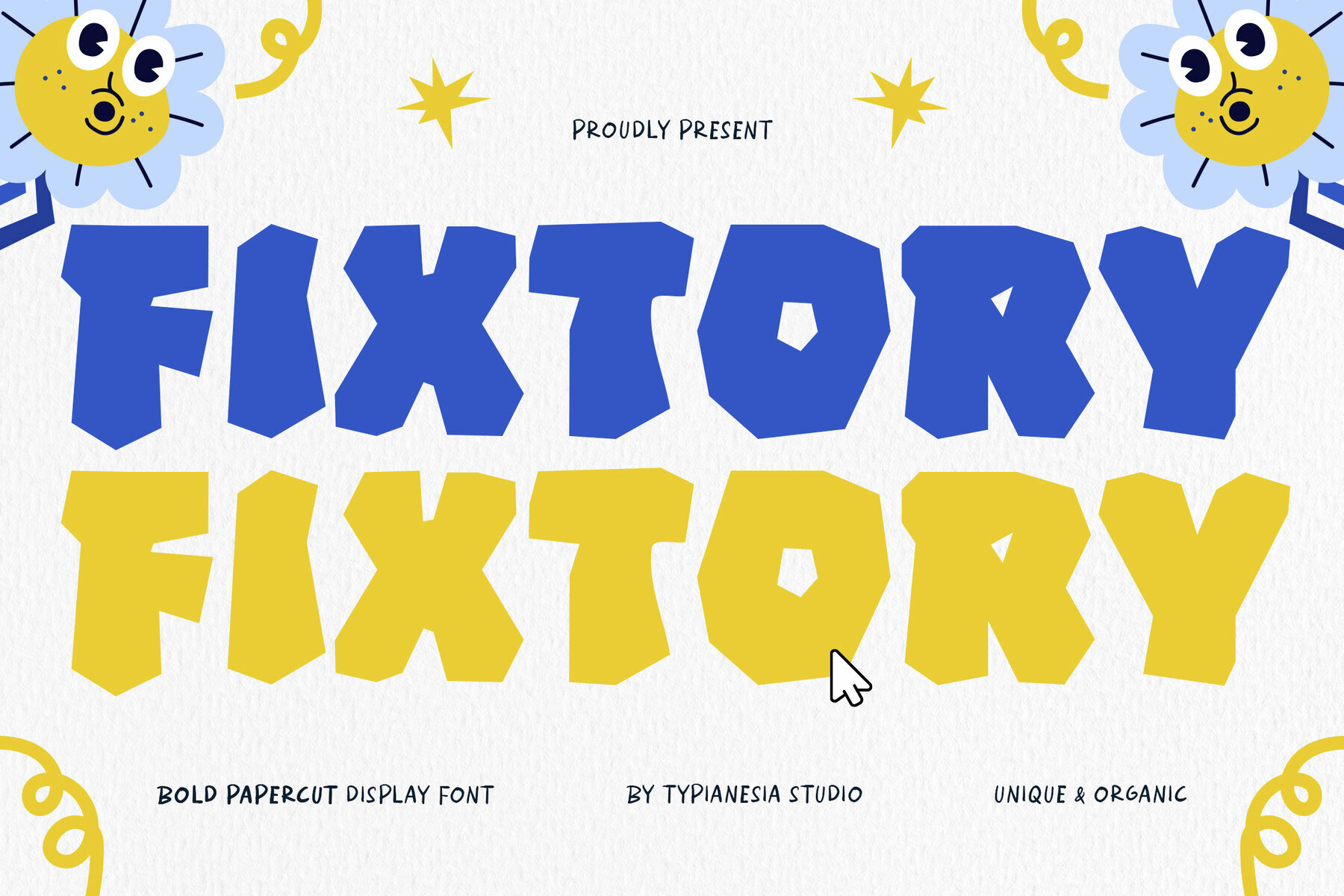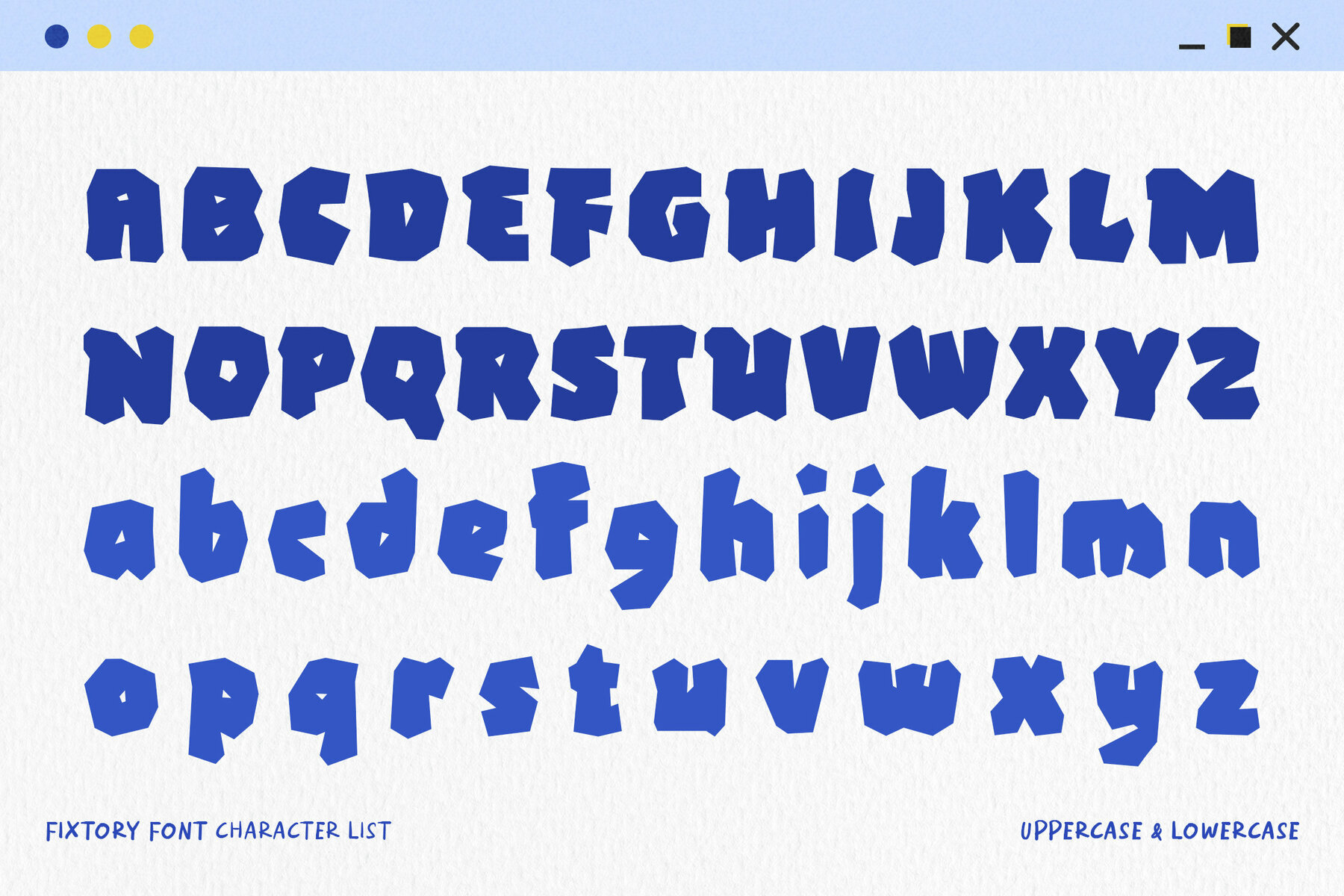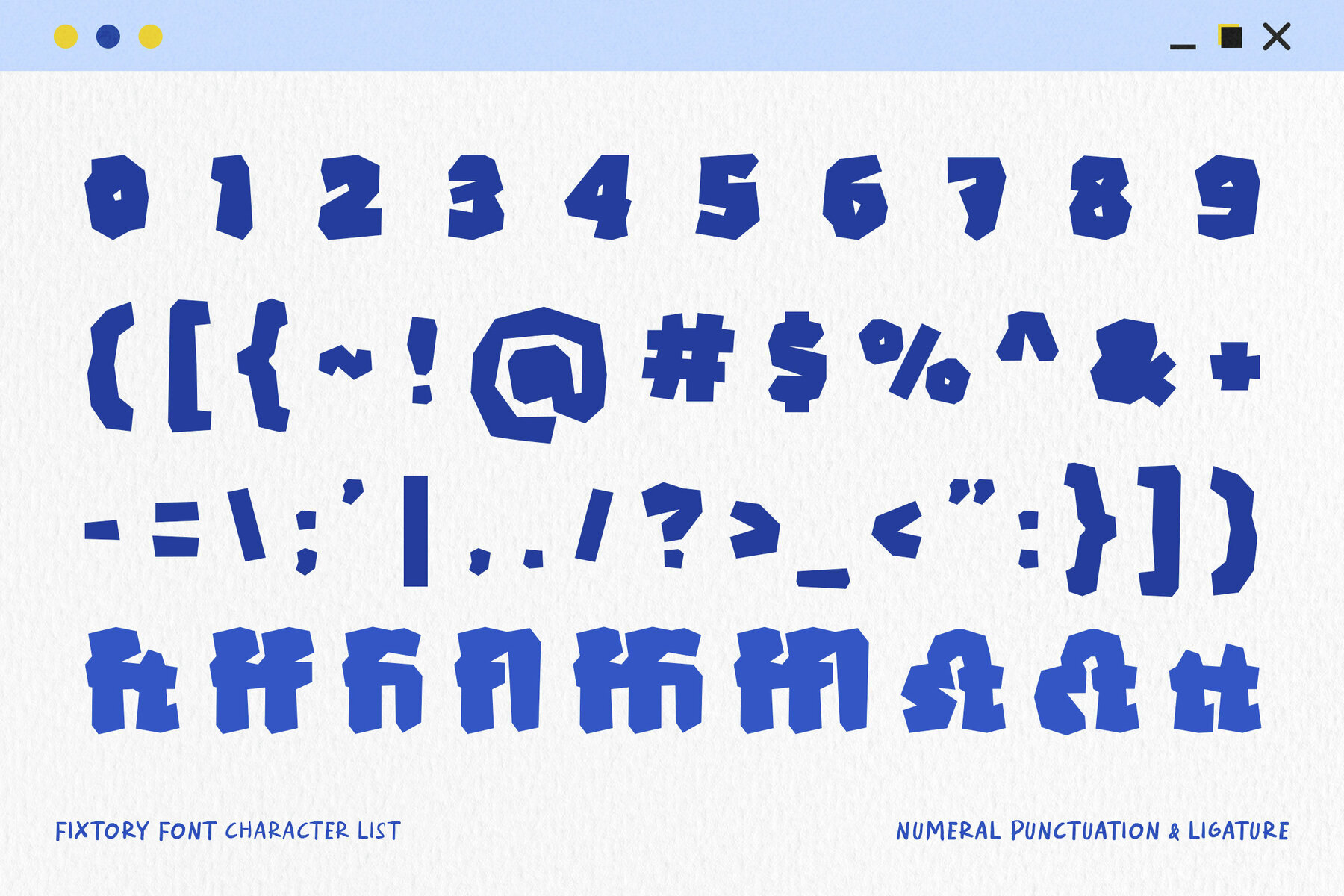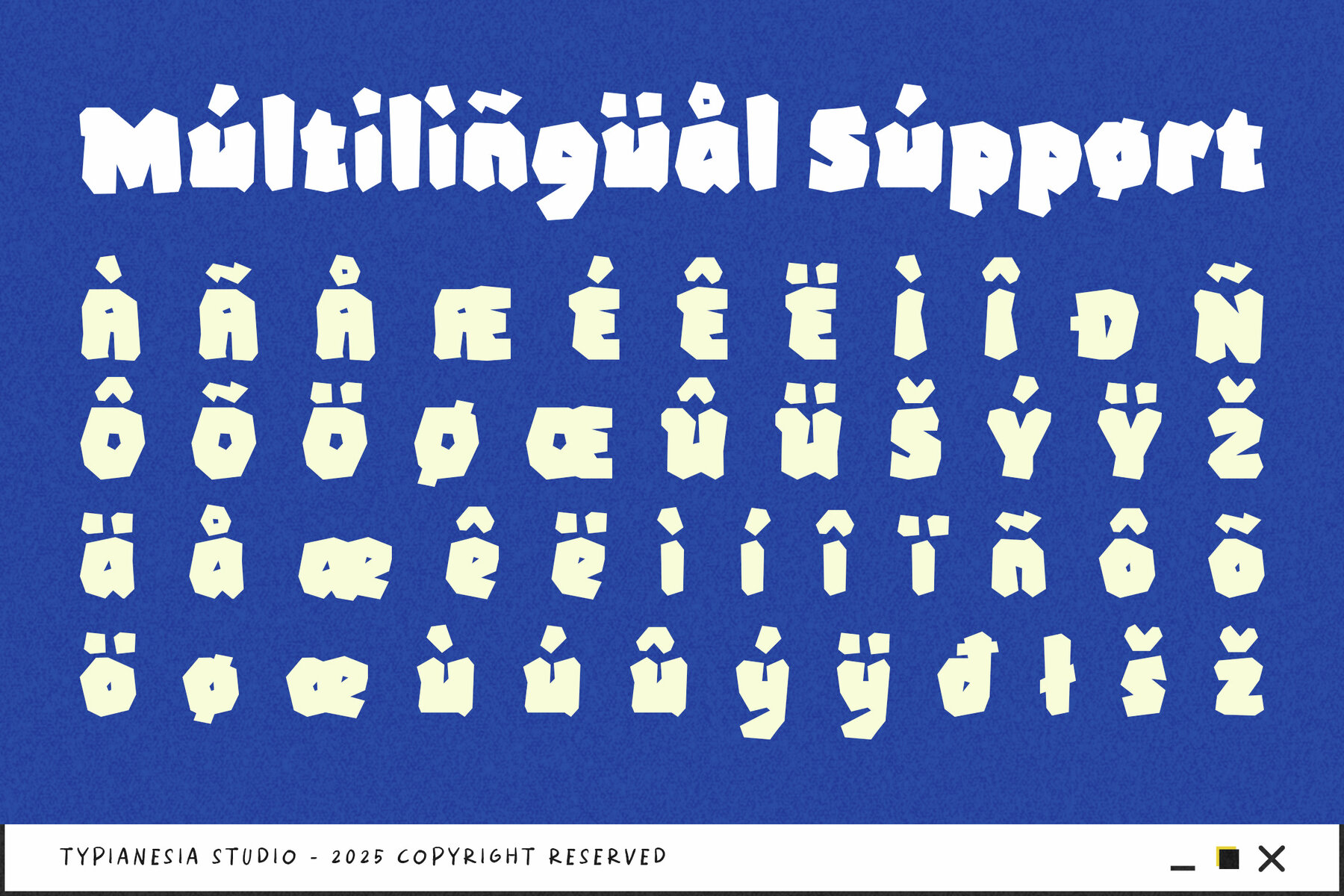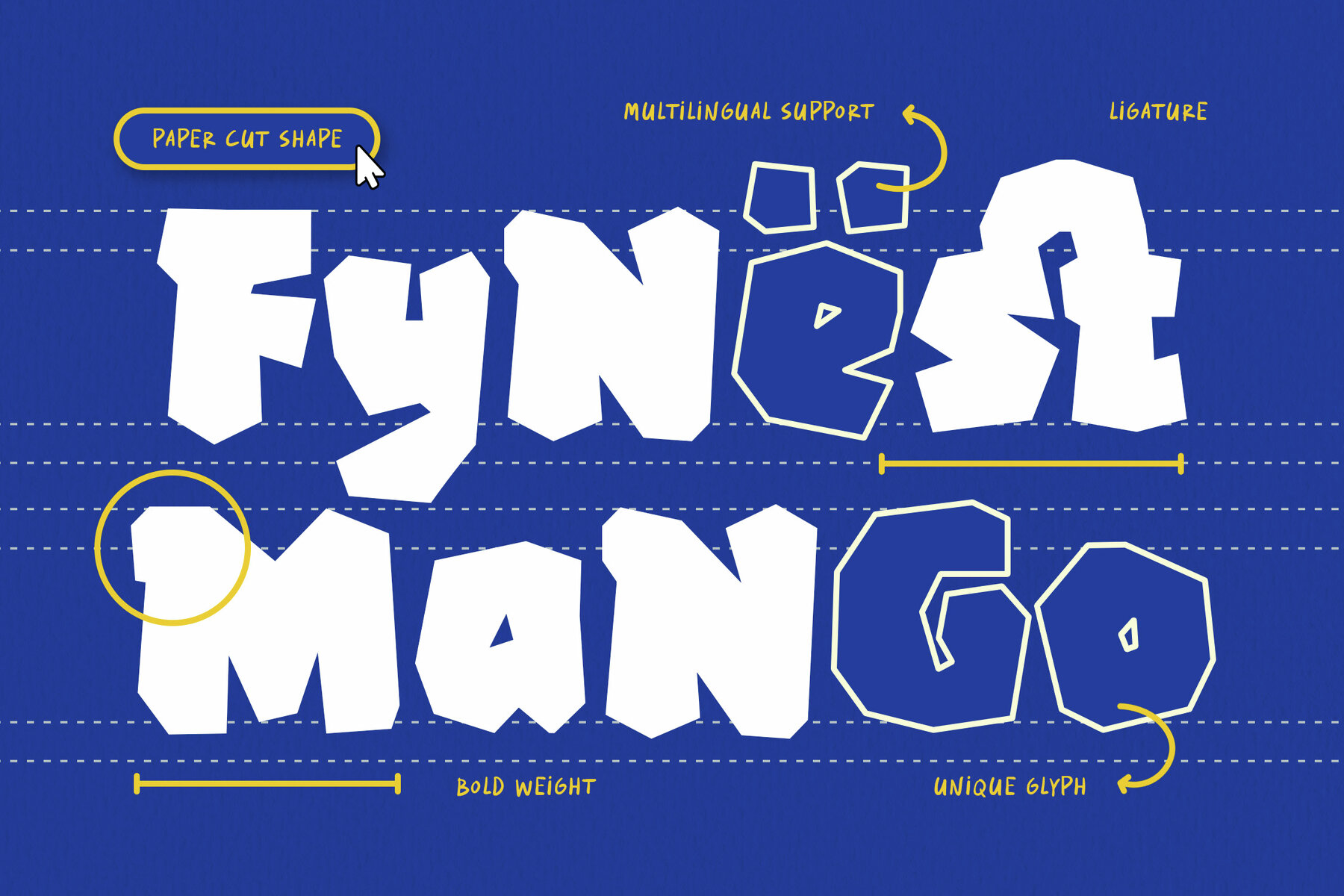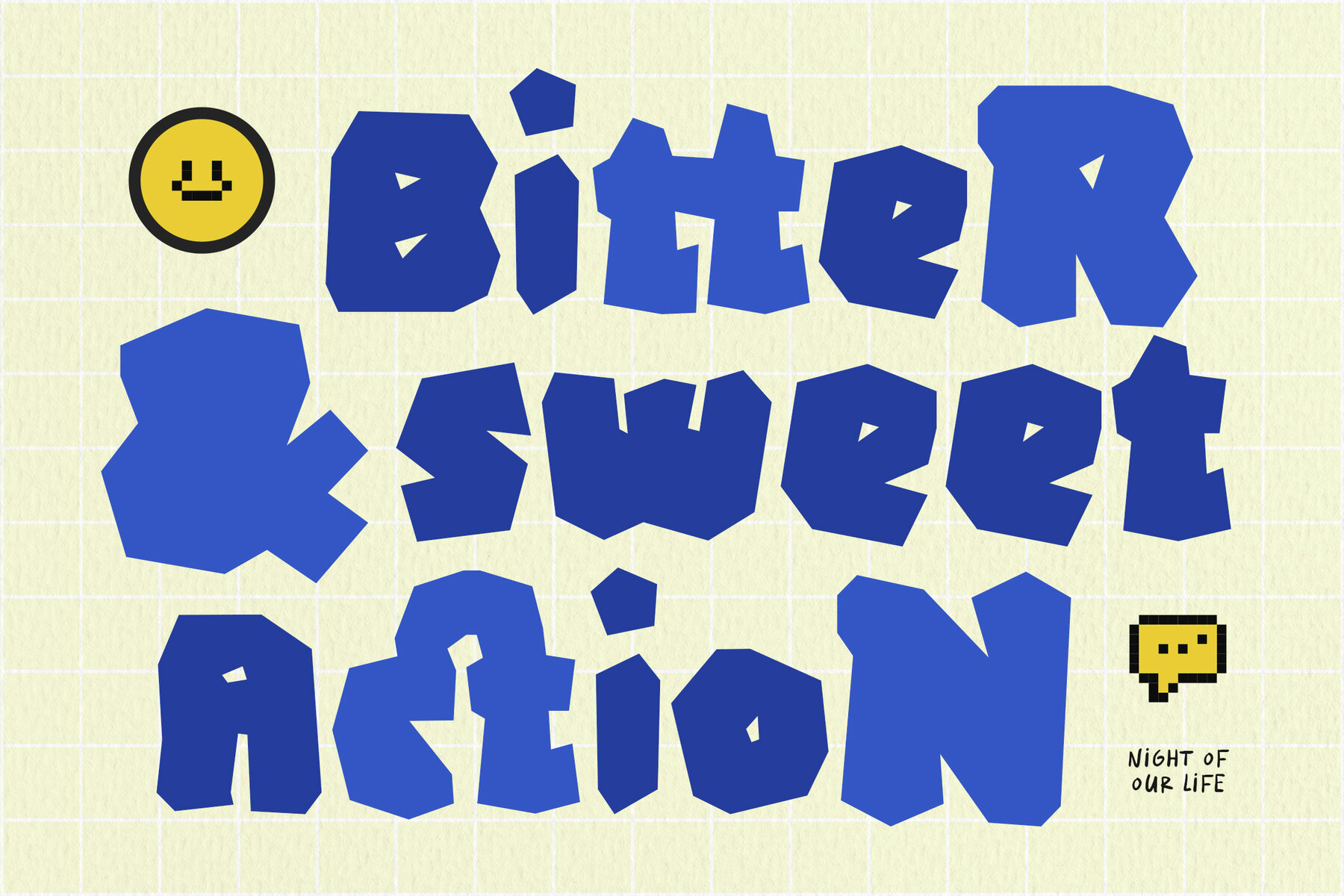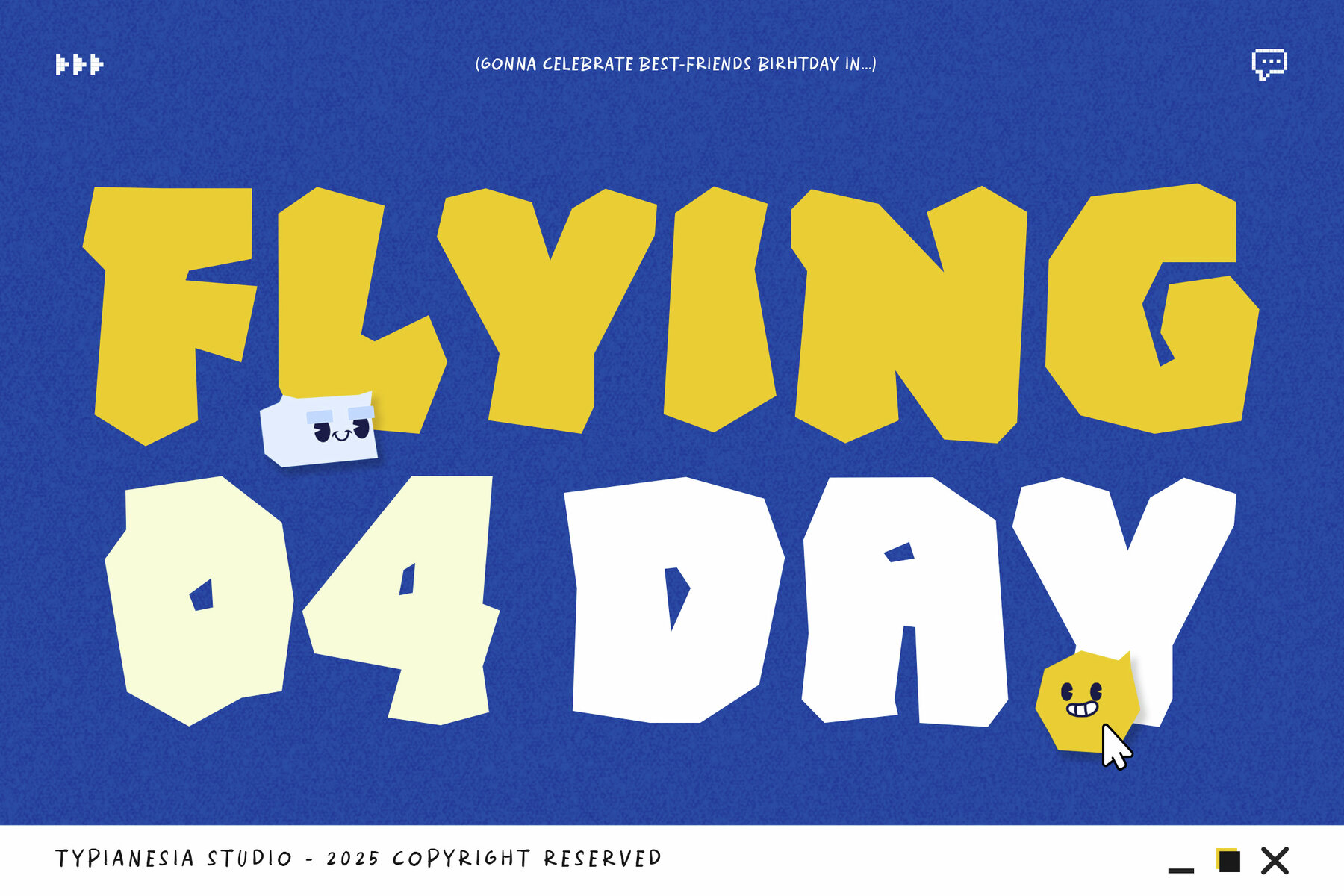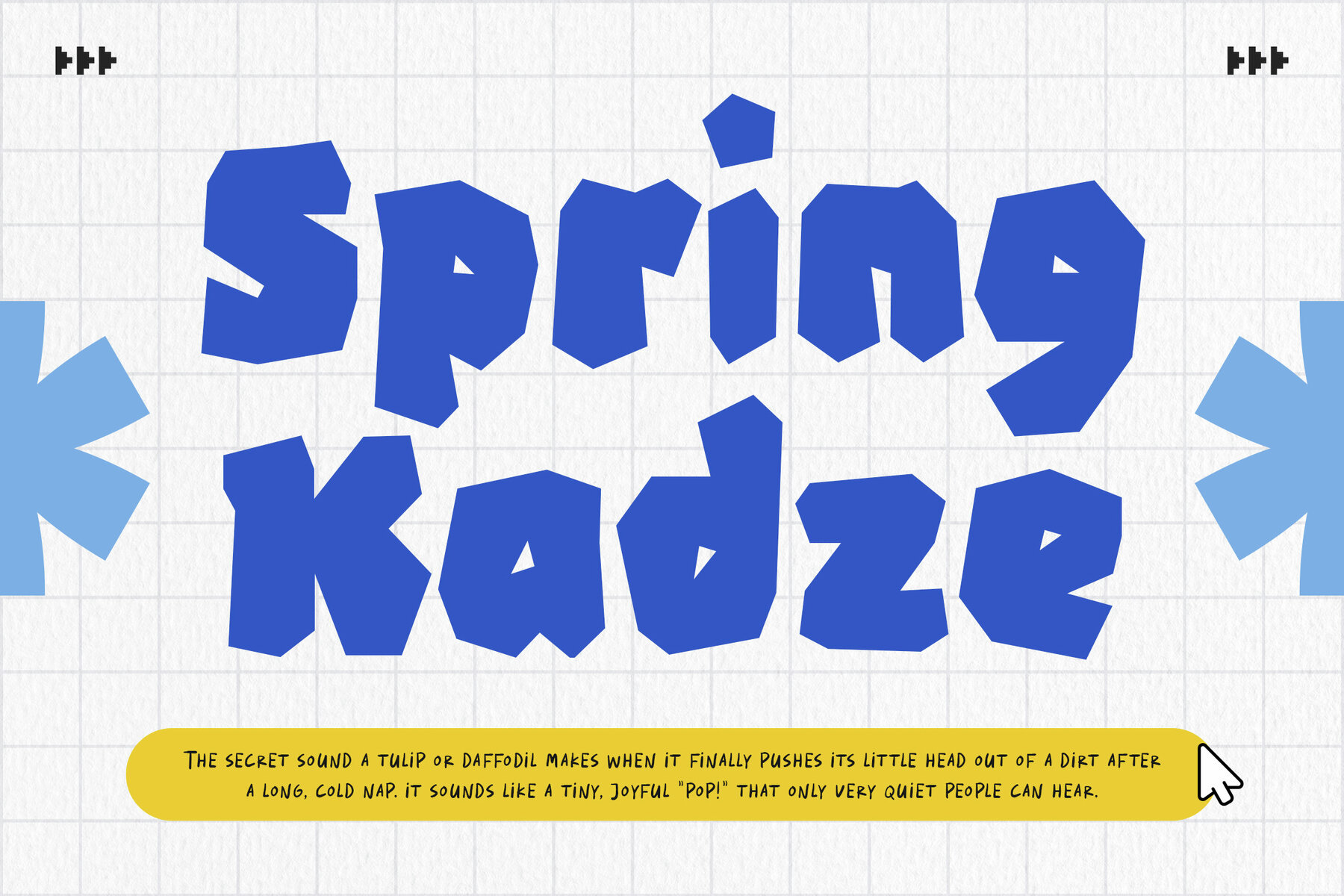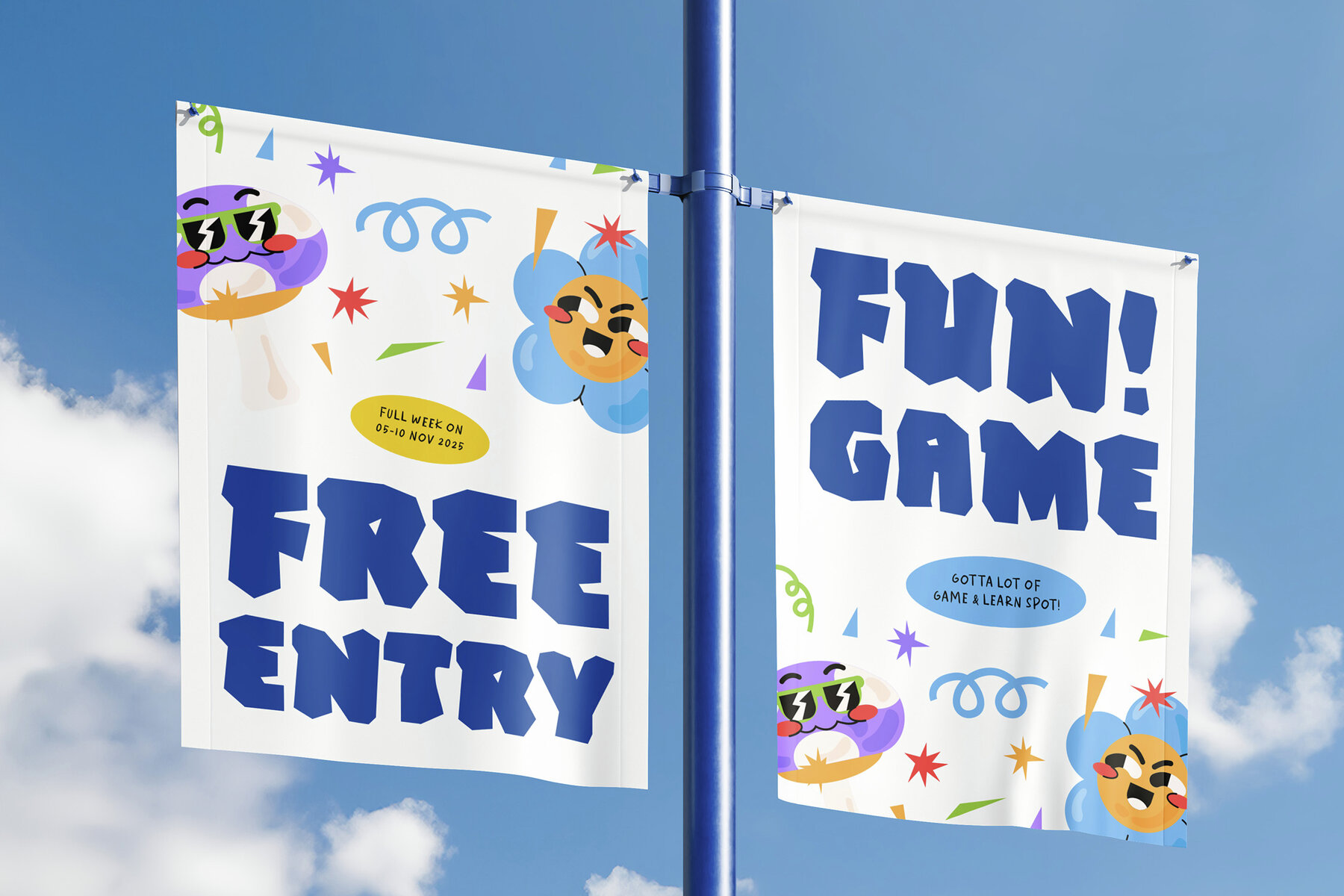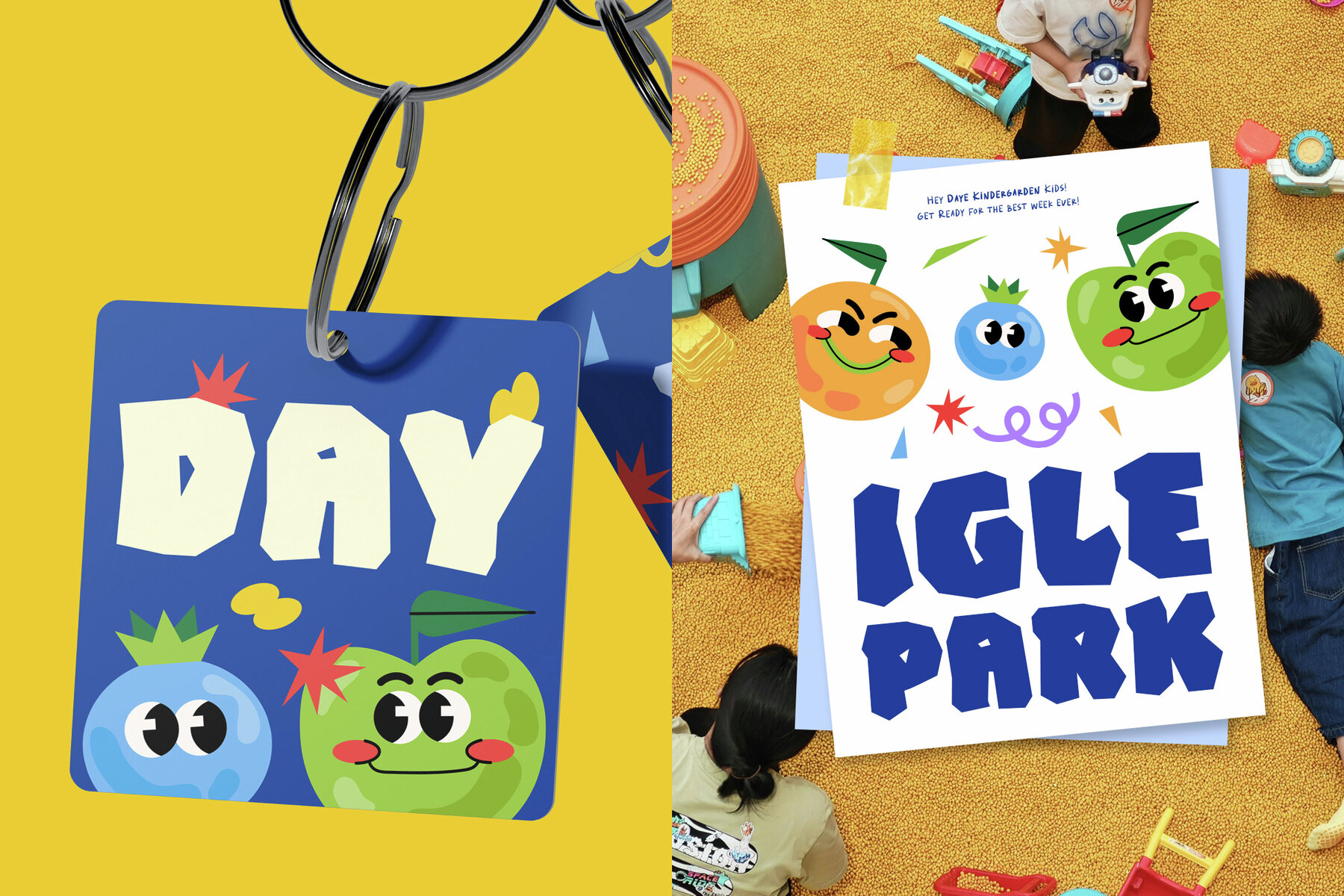
Fixtory Font
Fixtory Regular
Fixtory is a playful, bold display font that embodies the vibrant energy of handmade papercut art. The lively letterforms and chunky weight make it a memorable choice for kid-focused branding, retro game interfaces, and children’s book covers. This font’s playful character and distinctive shapes create strong visual impact, ensuring words stand out whether used for logos, packaging, or display headlines. Designed for maximum engagement, Fixtory invites creativity in projects ranging from bakery and café branding to toy packaging and promotional material. Engineered for versatility, Fixtory features a complete character set, including uppercase and lowercase letters, numerals, punctuation, and a selection of practical ligatures. Its extensive multilingual support allows design work to appeal to diverse, global audiences, while the chunky, easy-to-read forms bring a friendly DIY feel to digital and print applications.Fixtory: Bold Papercut Display Font With Playful Character